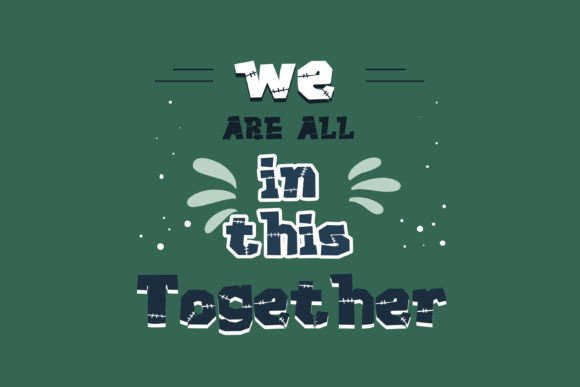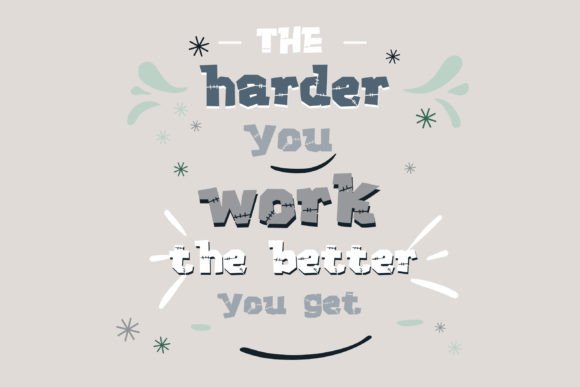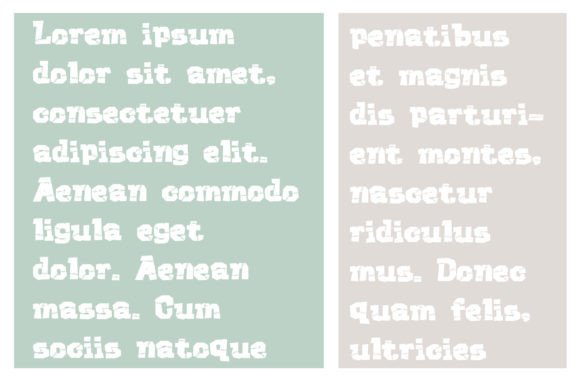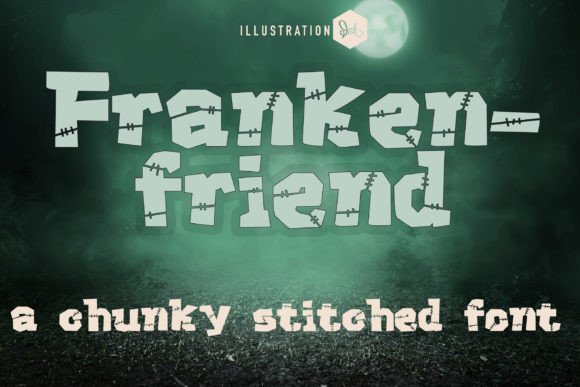
Introduction to Frankenfriend Font
Frankenfriend font is a delightfully playful typeface designed to bring spooktacular fun to your Halloween projects.
With its whimsical and eerie letterforms, this font captures the essence of the season, making it perfect for party invitations, posters, and spooky decorations Get ready to add a touch of Halloween magic to your projects.